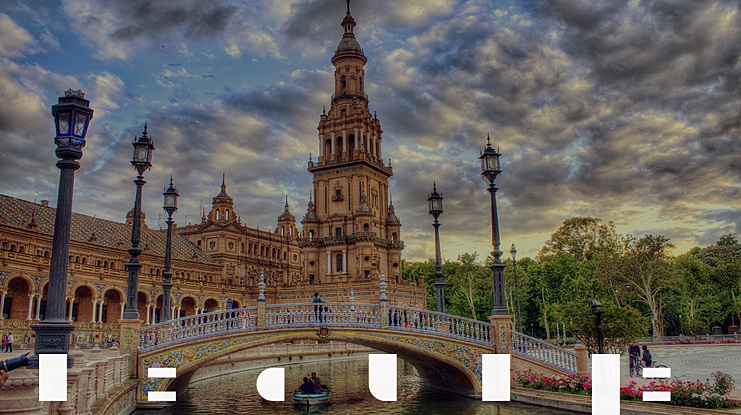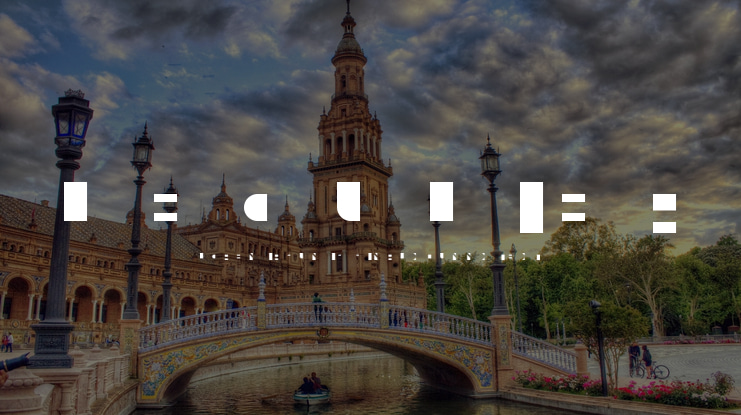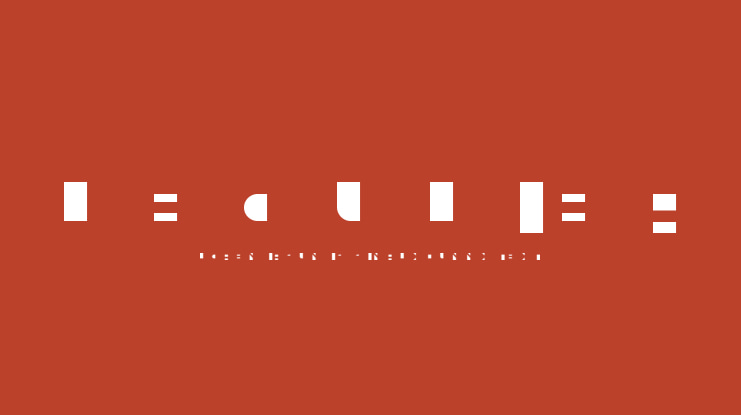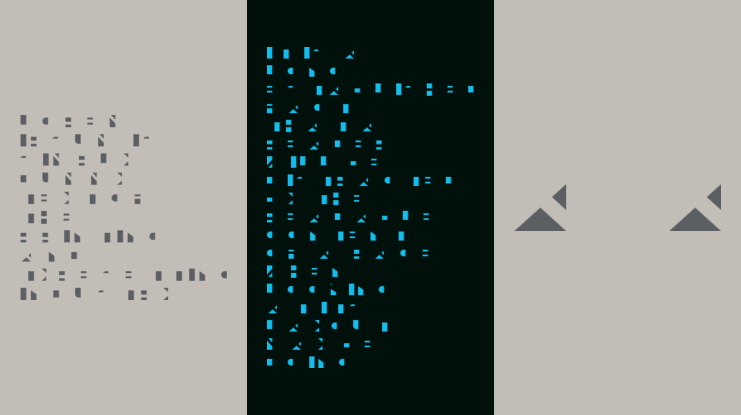
Leculier Font Family
Vladimir Nikolic
Digitalized plate from the book "Modeles De Lettres Modernes" by George Leculier from 1930. "Luculier" is double layered font, free for personal and commercial use! Enjoy!